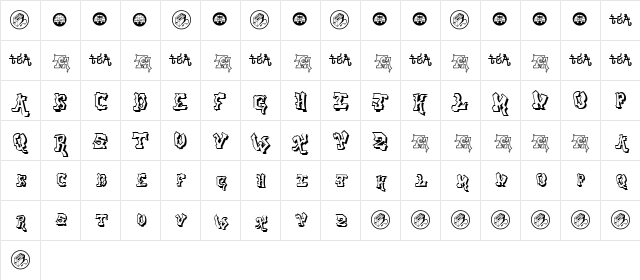
aerosol menace shadow
Design Context for aerosol menace
aerosol menace is built around its visual character rather than neutral utility - its distinctive forms are designed to make an impression at display sizes.
Font Pairing: Pair with a clean neutral sans-serif for body copy to let aerosol menace's character lead without overwhelming the composition.
Pro Tip: Use aerosol menace exclusively at display sizes - it was designed to be seen, not read at length. Let a neutral companion handle body copy.